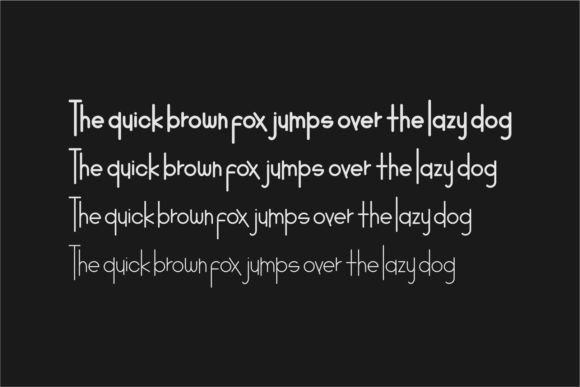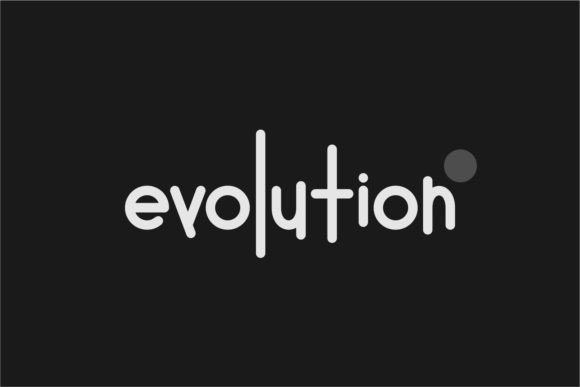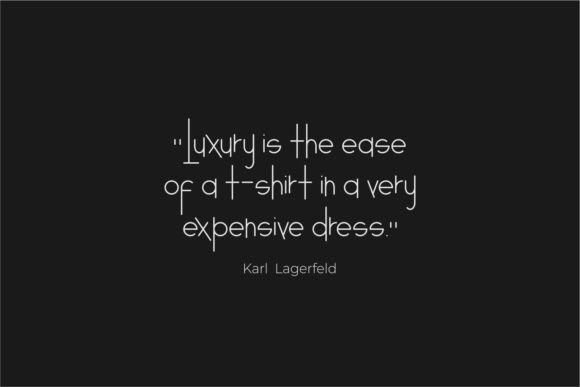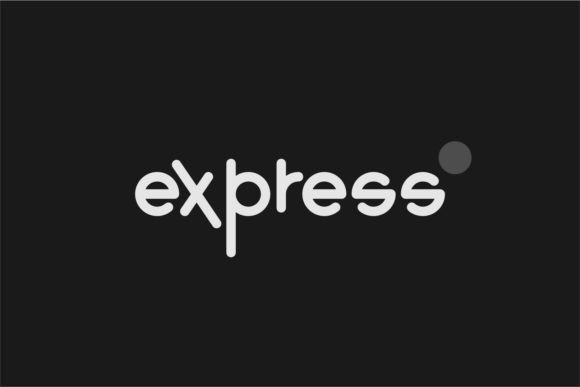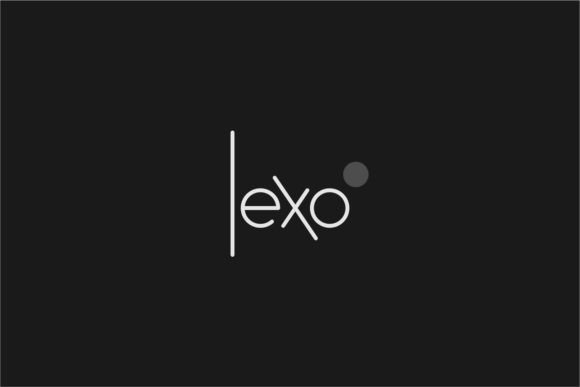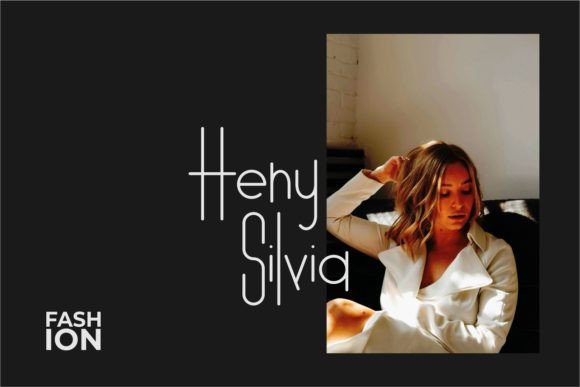
Introduction to Oblo Font
As designers, we’ve all been there – staring at a blank canvas, waiting for that perfect spark to ignite our creative project. For many, that spark comes in the form of a stunning font. And today, we’re excited to introduce you to the Oblo Font – a sleek, modern sans serif font that’s taking the design world by storm. With its elegant, classy style and versatility, it’s no wonder why Oblo Font has become a market favorite among designers and brands alike.
Whether you’re working on a high-quality logo, branding, or magazine design, the Oblo Font is the perfect design resource to elevate your project. Its clean lines, transparent background, and free download make it an ideal choice for any creative endeavor. As a valuable tool in your design arsenal, the Oblo Font is sure to inspire your next masterpiece and leave a lasting impression on your audience.
Key Features of Oblo Font
- High-quality design resource suitable for creative projects, offering a unique and modern aesthetic.
- Comes with a transparent background, making it easy to customize and integrate into various designs.
- Each font file is provided in a single weight, ideal for use in logos, headings, and body text.
- The font is designed to work well at resolutions up to 300 DPI, making it suitable for print and digital designs.
- Perfect for designers looking for a clean, sans-serif font to elevate their creative project.
Honest Review: Oblo Font
I recently had the chance to experiment with the Oblo Font, and I must say it’s been an exciting addition to my design toolkit. With its high quality and sleek design, it’s a great resource for any creative project.
What works well: ✨ The Oblo Font is incredibly versatile, making it perfect for a wide range of applications. Its clean and modern aesthetic lends itself well to digital design, while its subtle nuances also make it suitable for print materials. Additionally, the font’s transparent background makes it easy to customize and integrate with any design.
- High quality and sleek design
However, I did encounter a few limitations with the Oblo Font: ⚠️ The font library could be more extensive, with more variations and styles to choose from. Additionally, the font may not be suitable for very small text sizes, as the details can become blurry.
Overall, I’m impressed with the Oblo Font and would recommend it to anyone looking for a high-quality, modern font for their design projects. While it may have some limitations, its strengths far outweigh its weaknesses, making it a valuable resource for designers.
Tips for Getting the Most Out of Oblo Font
To get the most out of Oblo Font, experiment with different font sizes and styles to create a unique visual effect. You can also use the font in combination with other design elements to create a cohesive design.
The Oblo Font is commonly used in creative projects such as graphic design, digital art, and typography. Its high quality and transparent background make it a great design resource for designers who want to create unique and eye-catching designs.